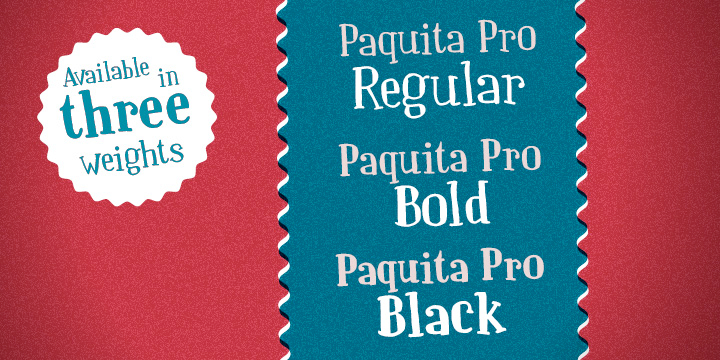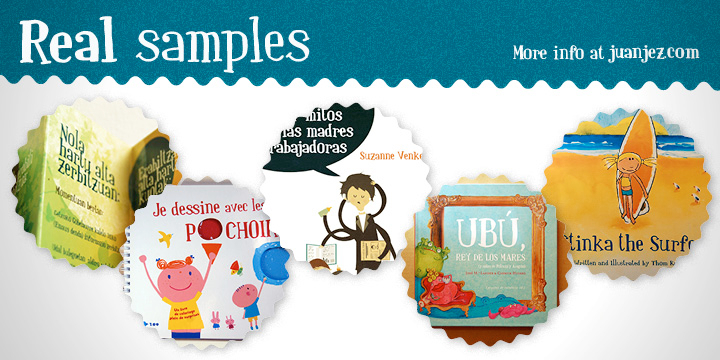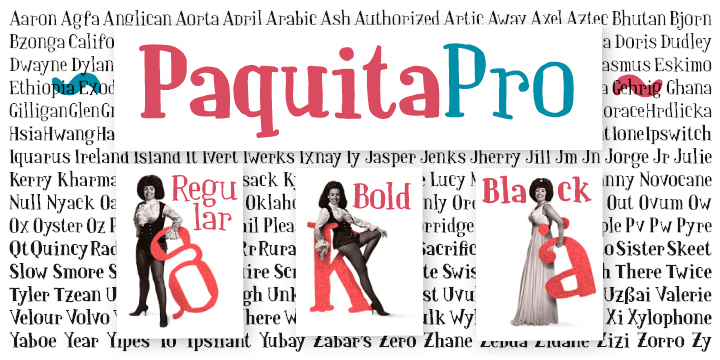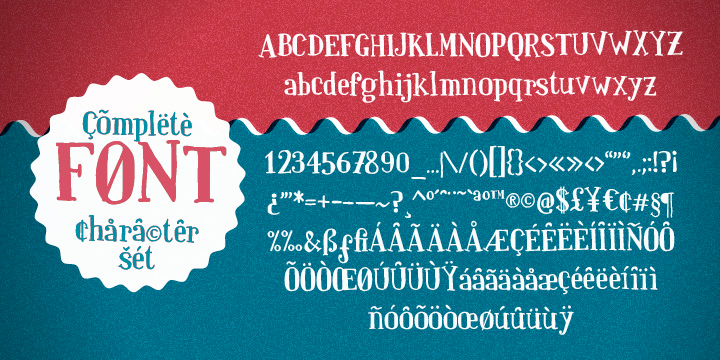
Paquita Pro is a hand drawn font family. This typeface has three styles and was published by Huy!Fonts.
Paquita is the best crazy funny font to use in children related stuff.